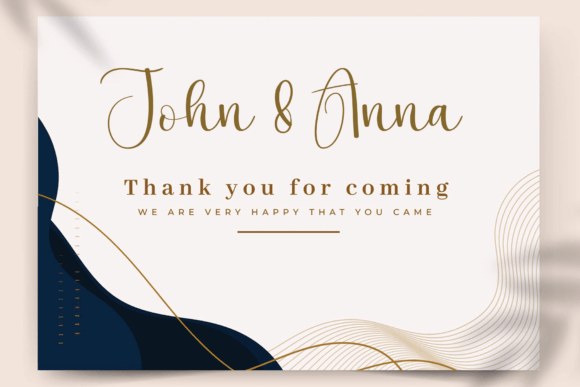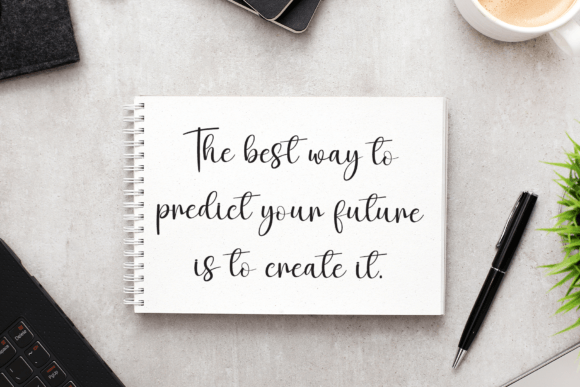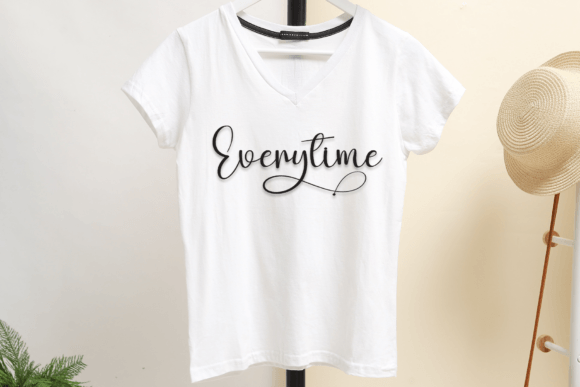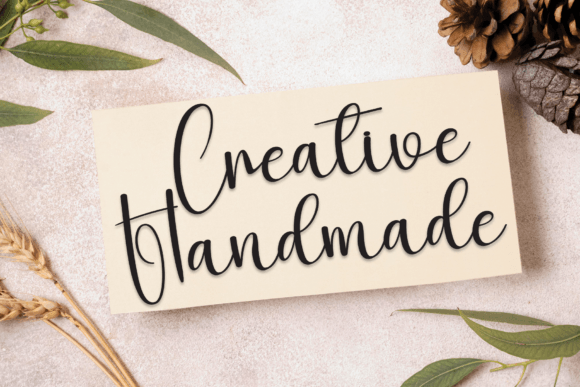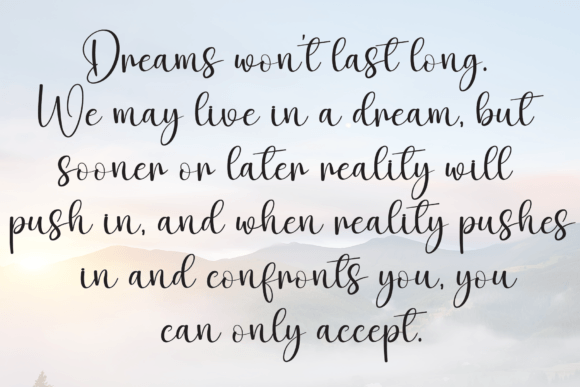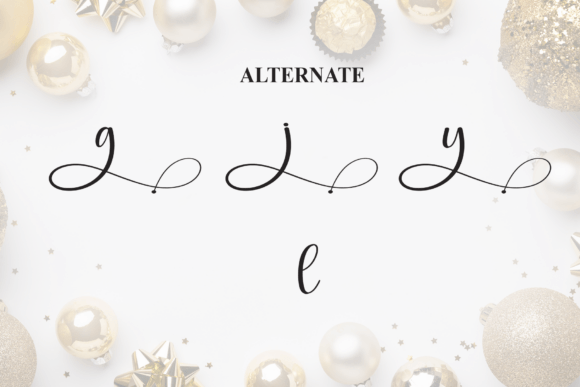
Deck the Halls with Style: Introducing Elegant Christmas Font
That’s where Elegant Christmas Font comes in – a stunning, handcrafted font designed to add a touch of elegance and sophistication to your projects. This versatile font is perfect for designers who want to create unique and memorable designs that stand out from the crowd. With Elegant Christmas Font, you can add a festive flair to your work without compromising on style or quality.
Elegant Christmas Font Key Features
- Unique Characteristics: The Elegant Christmas Font features intricate, hand-drawn designs with a vintage touch, making it perfect for adding a touch of elegance to your holiday-themed projects.
Elegant Christmas Font Review
First off, I’d like to say that the Elegant Christmas Font has a lot going for it ✨. The font is beautifully crafted, with delicate details and a classic feel that’s perfect for the holiday season. The font also comes with a range of ornaments and decorations that can be used to add some extra flair to your designs.
The font is also highly customizable, allowing you to adjust the size, color, and spacing to suit your needs. This makes it easy to use in a variety of different design projects, from invitations and cards to banners and posters.
One thing that I’d like to mention is that the Elegant Christmas Font can be a bit overwhelming to use, especially for those who are new to font design ⚠️. The font has a lot of different elements and ornaments, which can make it difficult to navigate and find what you need.
- Limited character set: The font only includes a limited range of characters, which can make it difficult to use in certain situations.
- No bold or italic styles: The font does not come with bold or italic styles, which can make it difficult to use in situations where you need to emphasize certain text.
Overall, I’d say that the Elegant Christmas Font is a great choice for anyone looking to add a touch of elegance to their holiday designs. While it may have some limitations, the font’s beauty and customizability make it well worth the investment.
The Elegant Christmas Font is perfect for:
– Holiday greeting cards and invitations
– Christmas party decorations and signage
– Social media posts and captions